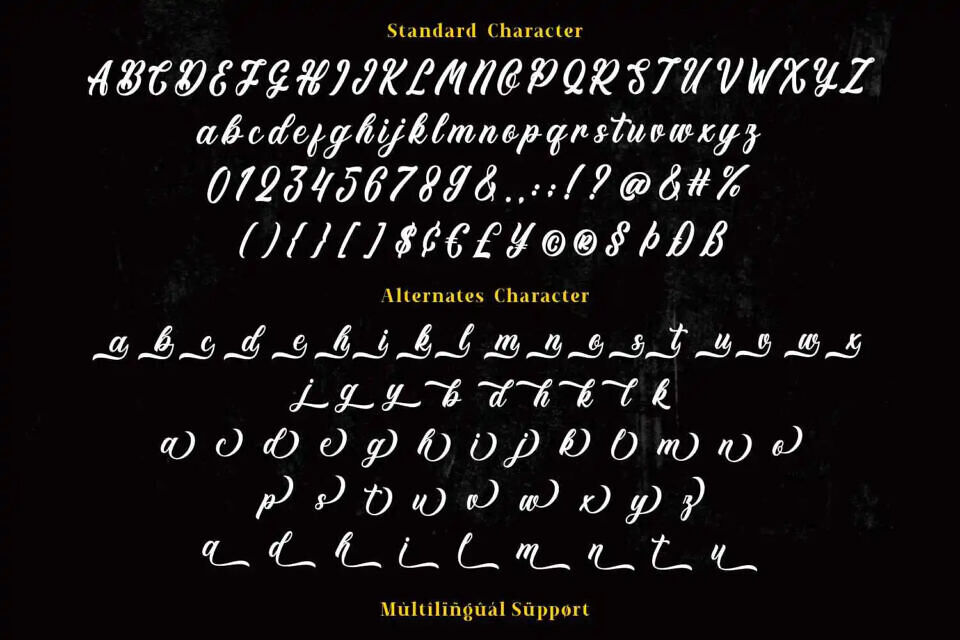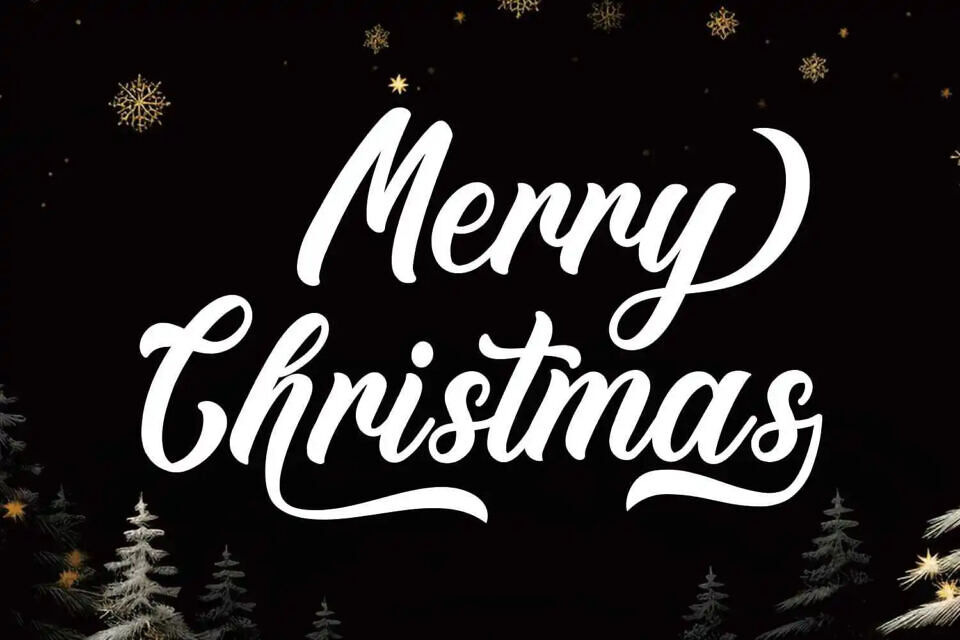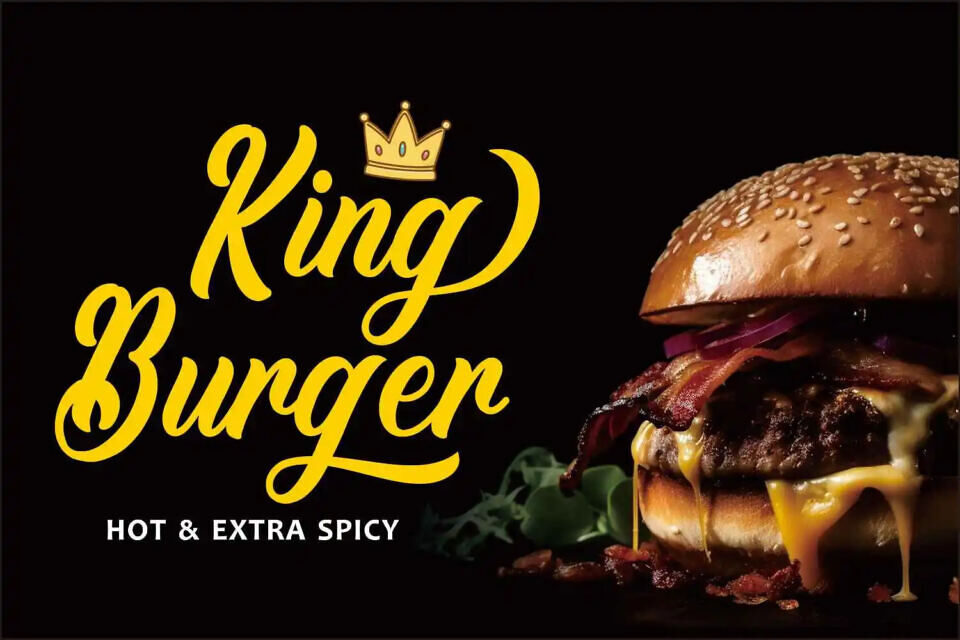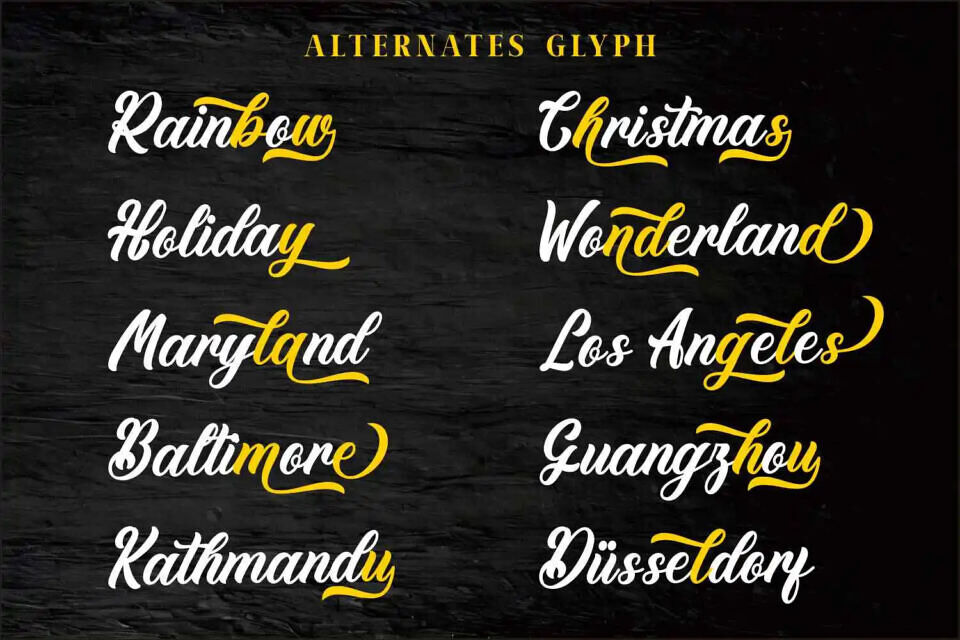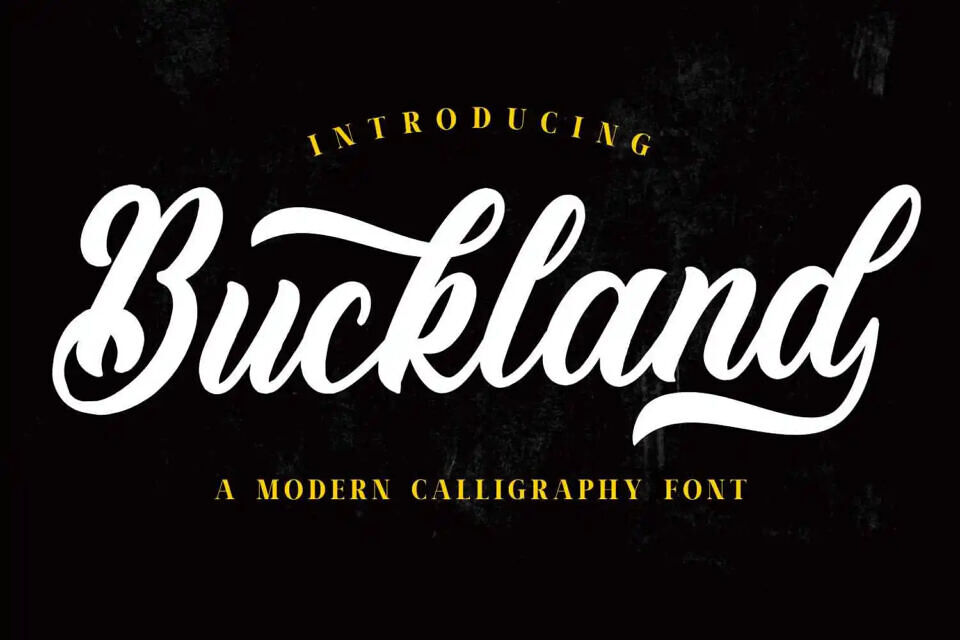
Buckland Font
Introducing Buckland Font, a captivating blend of retro and vintage aesthetics infused with classic handwritten script style. Perfect for crafting timeless logos, evoking nostalgia with retro-themed writings, and adding a touch of vintage charm to your embroidery projects.
Buckland Font effortlessly captures the essence of bygone eras, making it an ideal choice for Thanksgiving greetings, festive Christmas designs, and crafting personalized letterings that exude warmth and character.